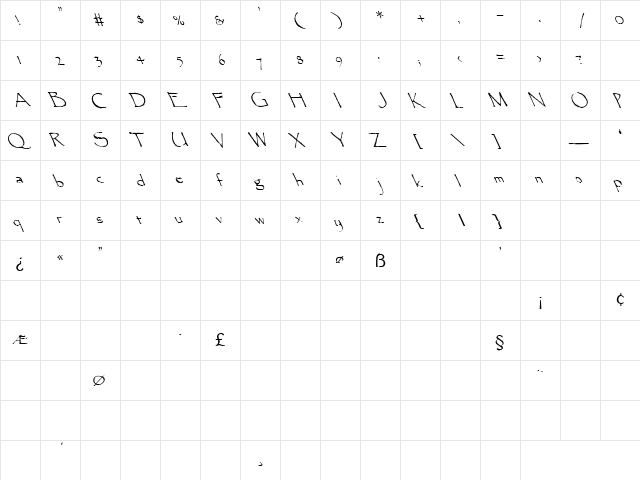
Axlerod 2 Regular
Design Context for Axlerod 2 Typeface
Axlerod 2 offers clean, dependable letterforms without strong stylistic allegiance, making it a practical choice for designers who need flexibility.